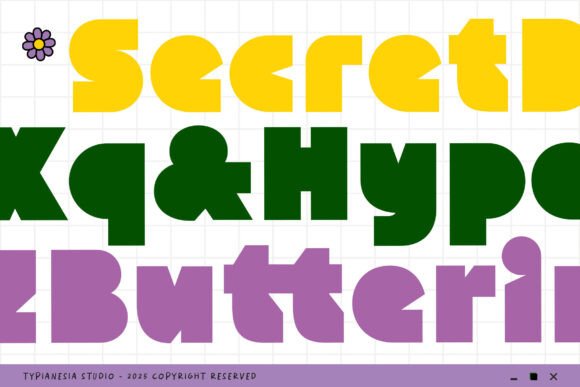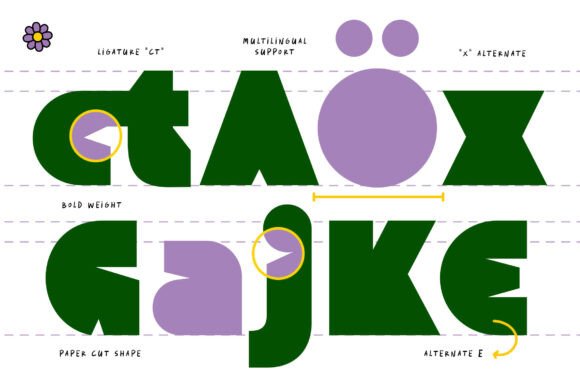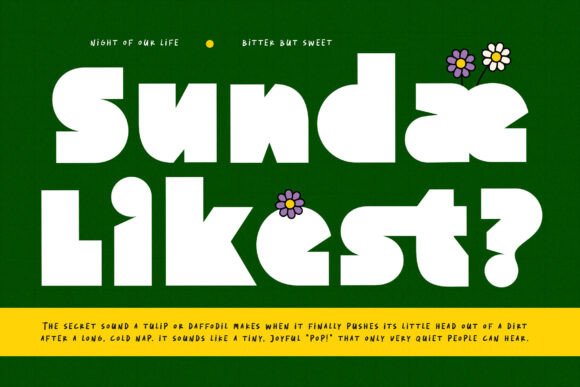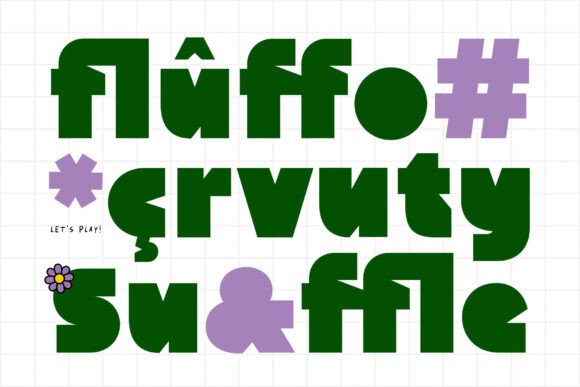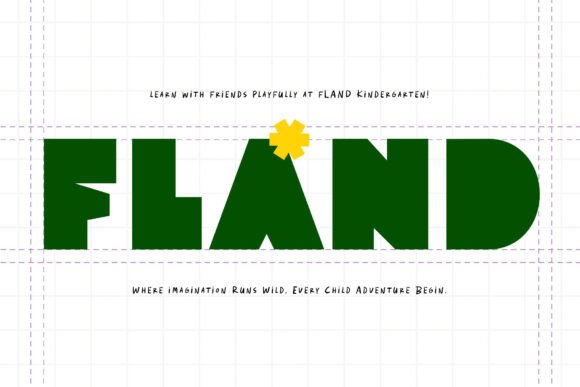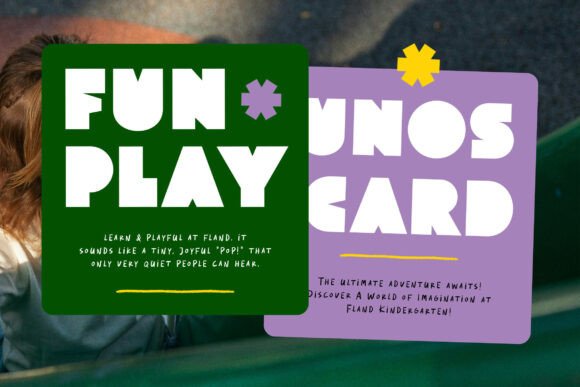
Foire Font: The Ultimate Playful Bold Solid Font for Modern Designs
Are you looking for a font that can add a touch of playful charm to your design projects? Look no further than Foire Font, a modern rounded cartoon logo display font that is sure to bring cheerful energy and fun personality to your creations. In this article, we’ll dive into the features and benefits of Foire Font, and explore how it can elevate your designs to the next level.
What is Foire Font?
Foire Font is a playful bold solid sans serif font designed to bring a sense of fun and imagination to every design project. With its rounded shapes, chunky solid forms, and cute cartoon-inspired style, Foire creates a modern and friendly visual appearance that is perfect for a wide range of applications. Whether you’re working on kids’ branding, game titles, logos, posters, packaging, or headlines, Foire Font is the perfect choice.
Key Features of Foire Font
- Playful and Bold: Foire Font delivers a bold, energetic, and playful vibe that is sure to grab attention.
- Rounded Shapes: The font features rounded shapes that give it a friendly and approachable feel.
- Chunky Solid Forms: The chunky solid forms of Foire Font make it perfect for headlines, titles, and other display text.
- Cute Cartoon-Inspired Style: The font’s cartoon-inspired style makes it perfect for kids’ branding, game titles, and other projects that require a touch of whimsy.
- Modern and Friendly: Foire Font creates a modern and friendly visual appearance that is perfect for a wide range of design projects.
Use Cases for Foire Font
Foire Font is a versatile font that can be used in a wide range of design projects, including:
- Kids’ Branding: Foire Font is perfect for kids’ branding, including logos, packaging, and marketing materials.
- Game Titles: The font’s playful and bold style makes it perfect for game titles, icons, and other gaming-related design elements.
- Logos: Foire Font can be used to create fun and memorable logos for businesses, products, and services.
- Posters: The font’s bold and playful style makes it perfect for posters, flyers, and other print materials.
- Packaging: Foire Font can be used to create eye-catching packaging that stands out on store shelves.
- Headlines: The font’s chunky solid forms make it perfect for headlines, titles, and other display text.
- Modern Creative Branding: Foire Font can be used to create modern and friendly branding for businesses, products, and services.
Benefits of Using Foire Font
There are many benefits to using Foire Font in your design projects, including:
- Unique and Memorable: Foire Font is a unique and memorable font that can help your designs stand out from the crowd.
- Playful and Engaging: The font’s playful and bold style makes it perfect for designs that require a touch of whimsy and fun.
- Versatile: Foire Font can be used in a wide range of design projects, from kids’ branding to modern creative branding.
- Easy to Read: The font’s chunky solid forms make it easy to read, even at small sizes.
In conclusion, Foire Font is a playful bold solid font that is perfect for designers and crafters who want to add a touch of fun and imagination to their design projects. With its rounded shapes, chunky solid forms, and cute cartoon-inspired style, Foire Font creates a modern and friendly visual appearance that is sure to grab attention. Whether you’re working on kids’ branding, game titles, logos, posters, packaging, or headlines, Foire Font is the perfect choice. So why wait? Bring playful vibes to your design with Foire Font today!